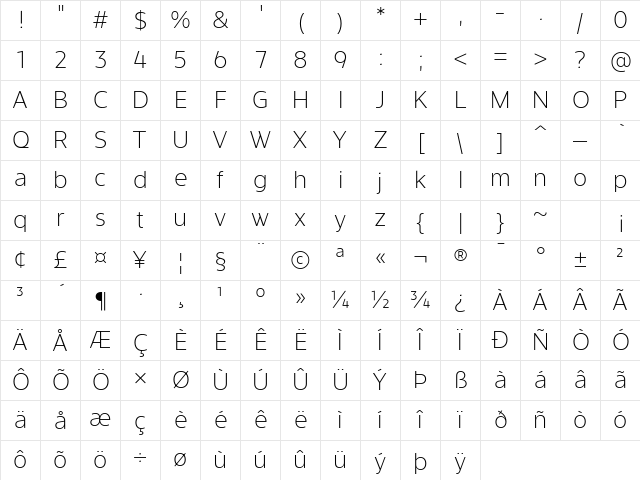
Complete Evander ExtraLight glyph index. Displaying only characters natively supported by Evander ExtraLight font.
Evander is a composed and adaptable typeface that performs quietly and consistently across a wide range of design contexts. Its slender proportions lend an understated elegance to any composition.